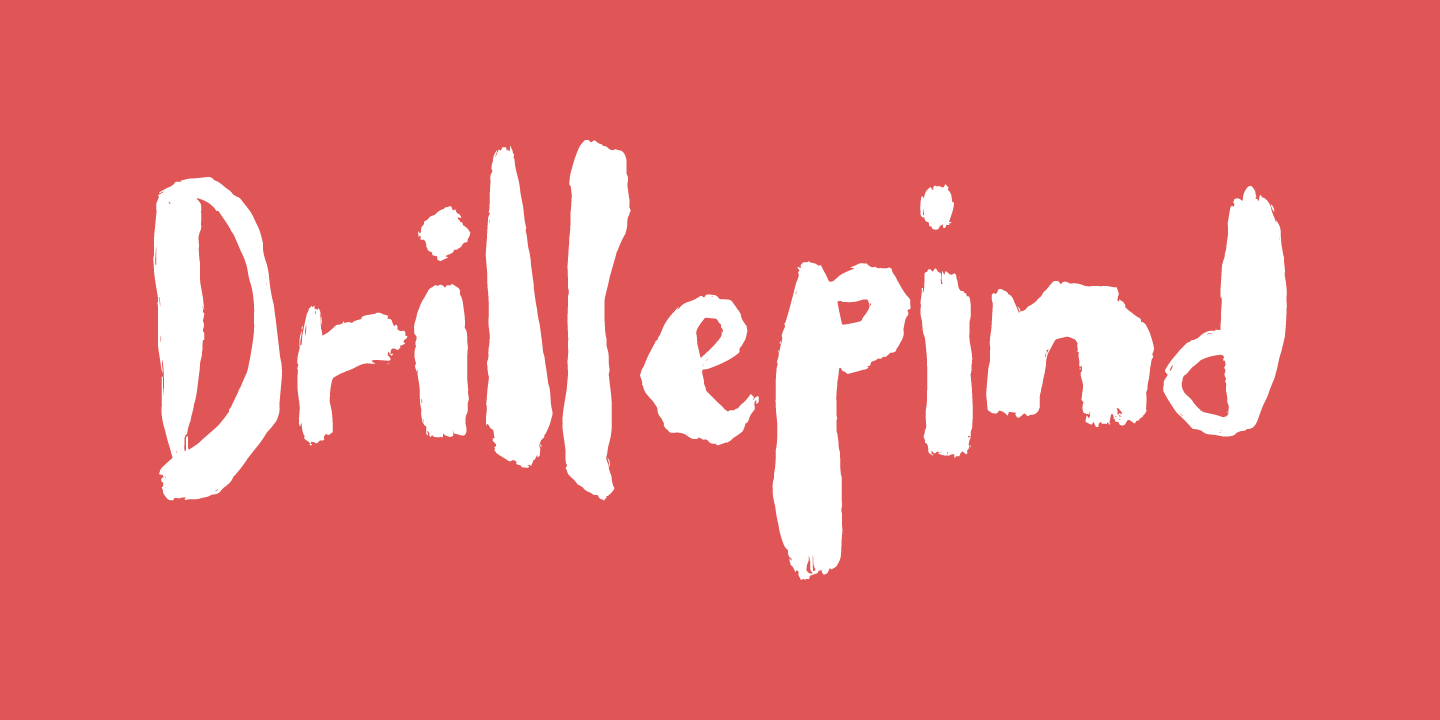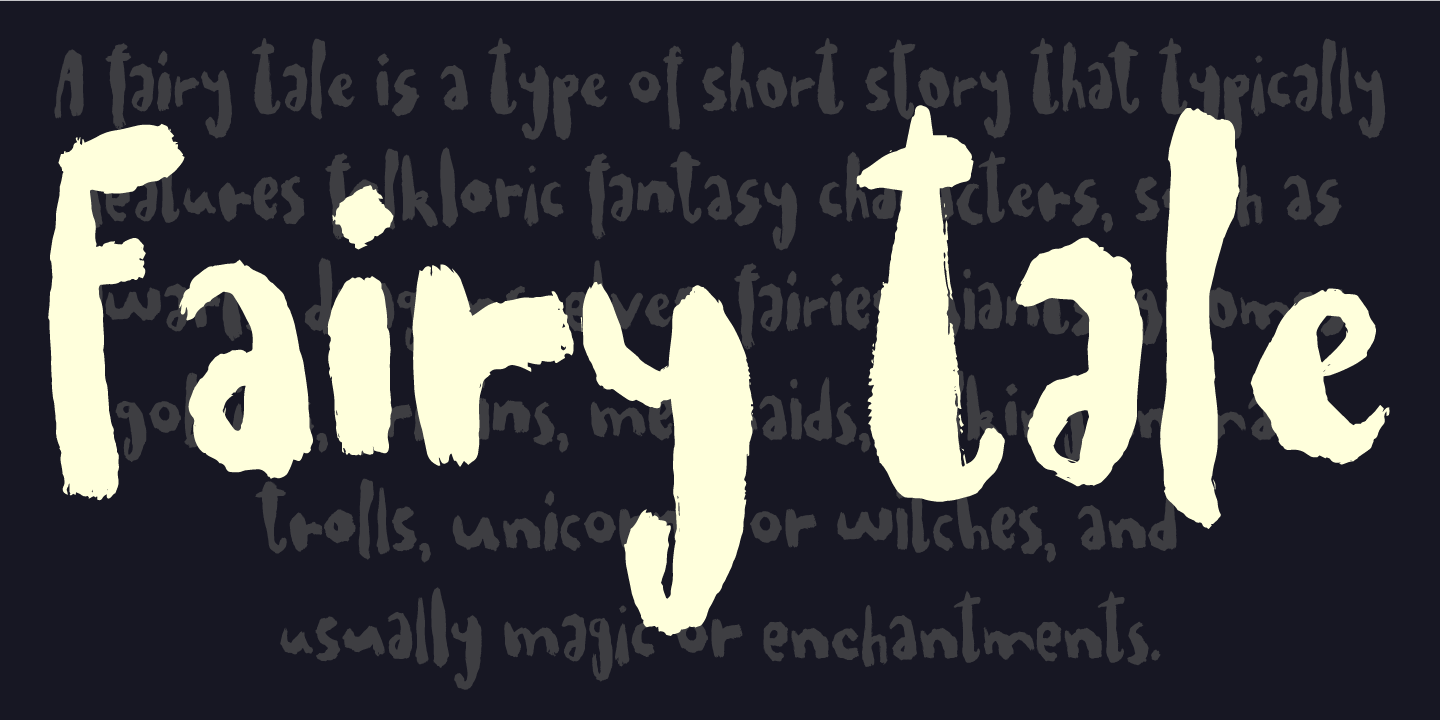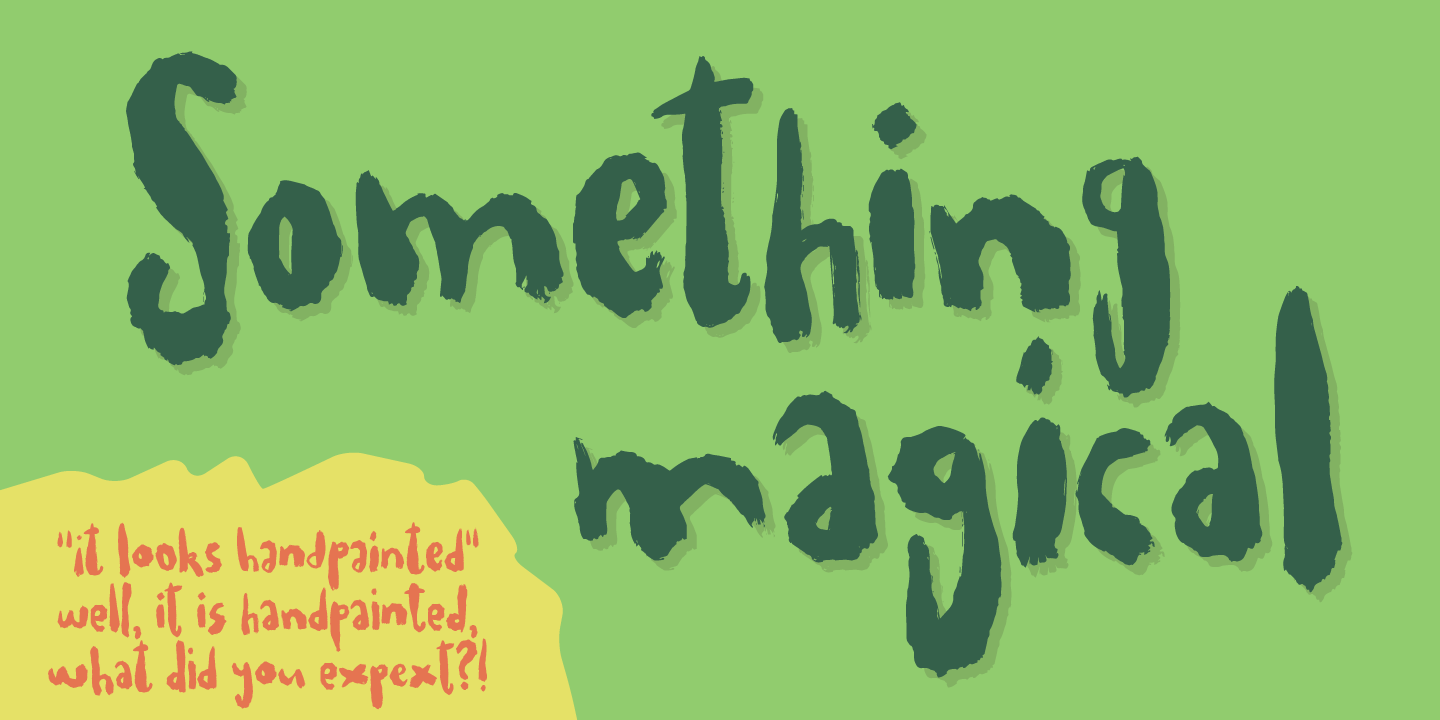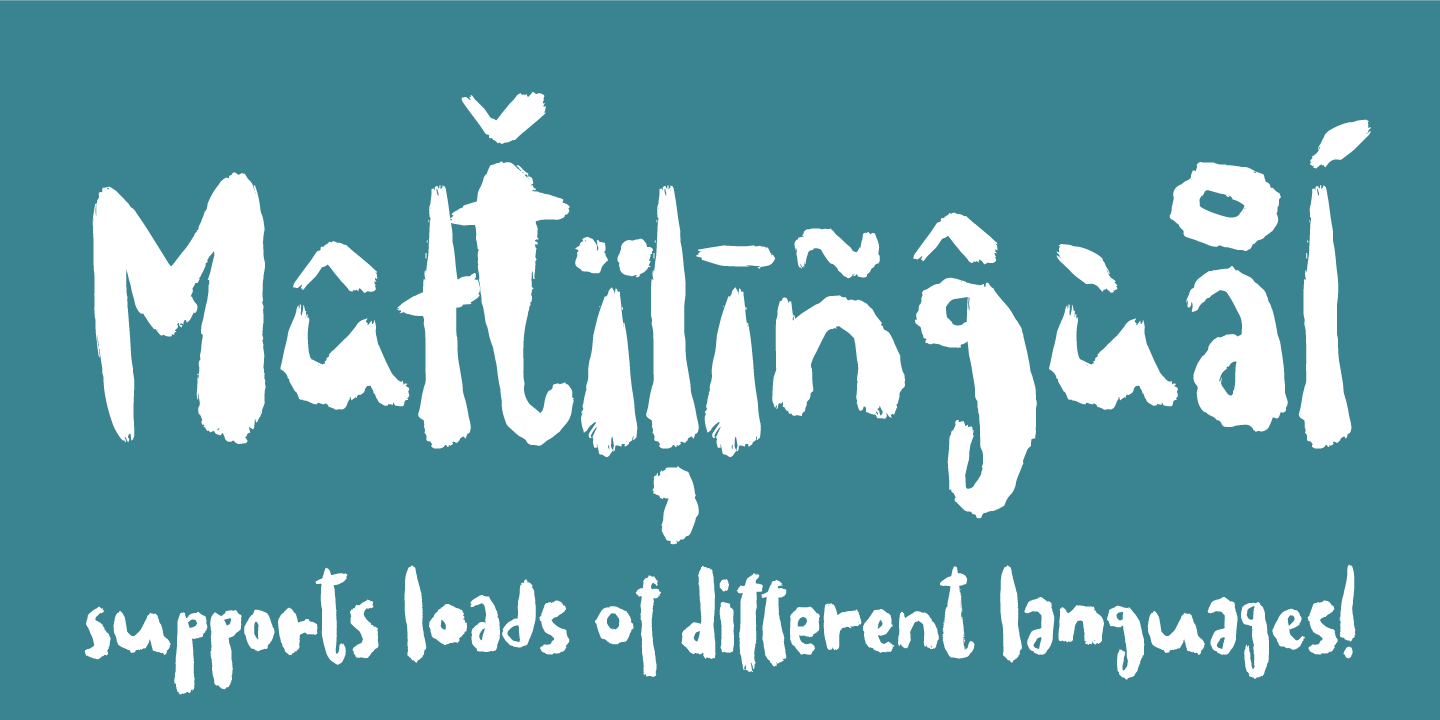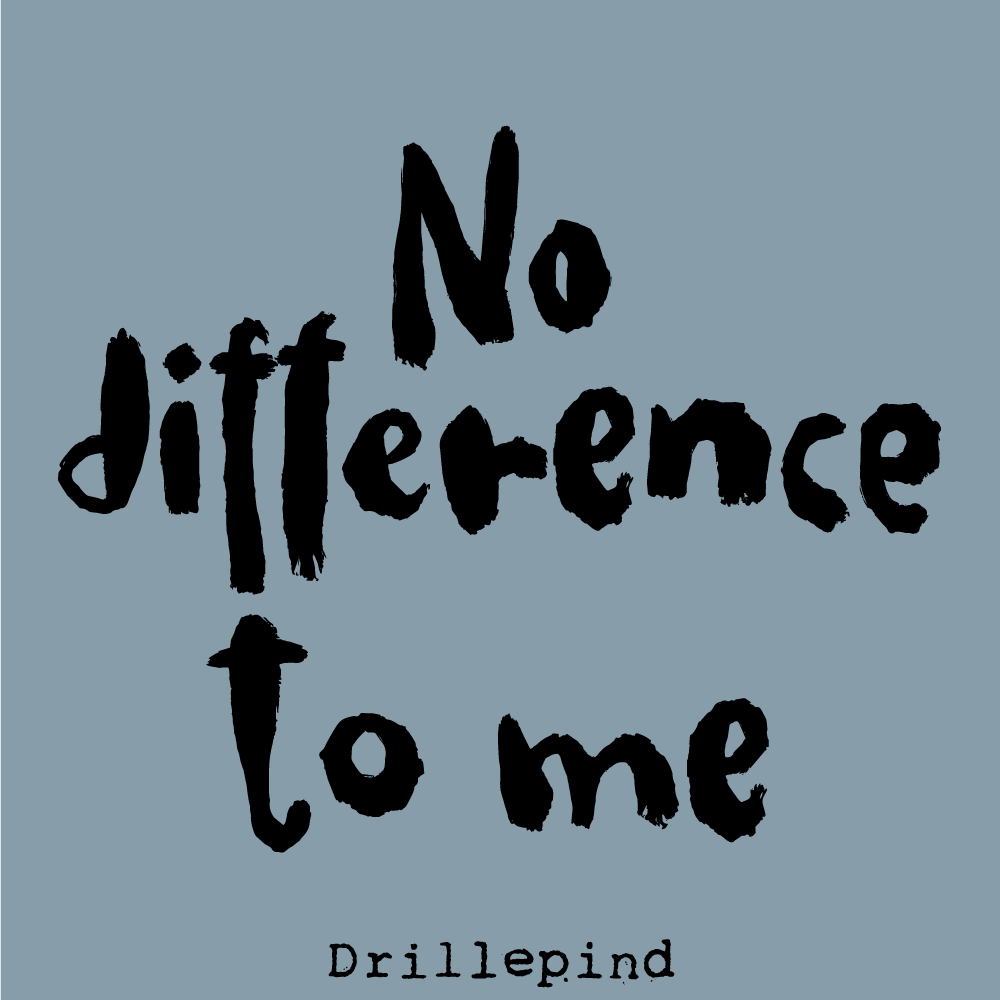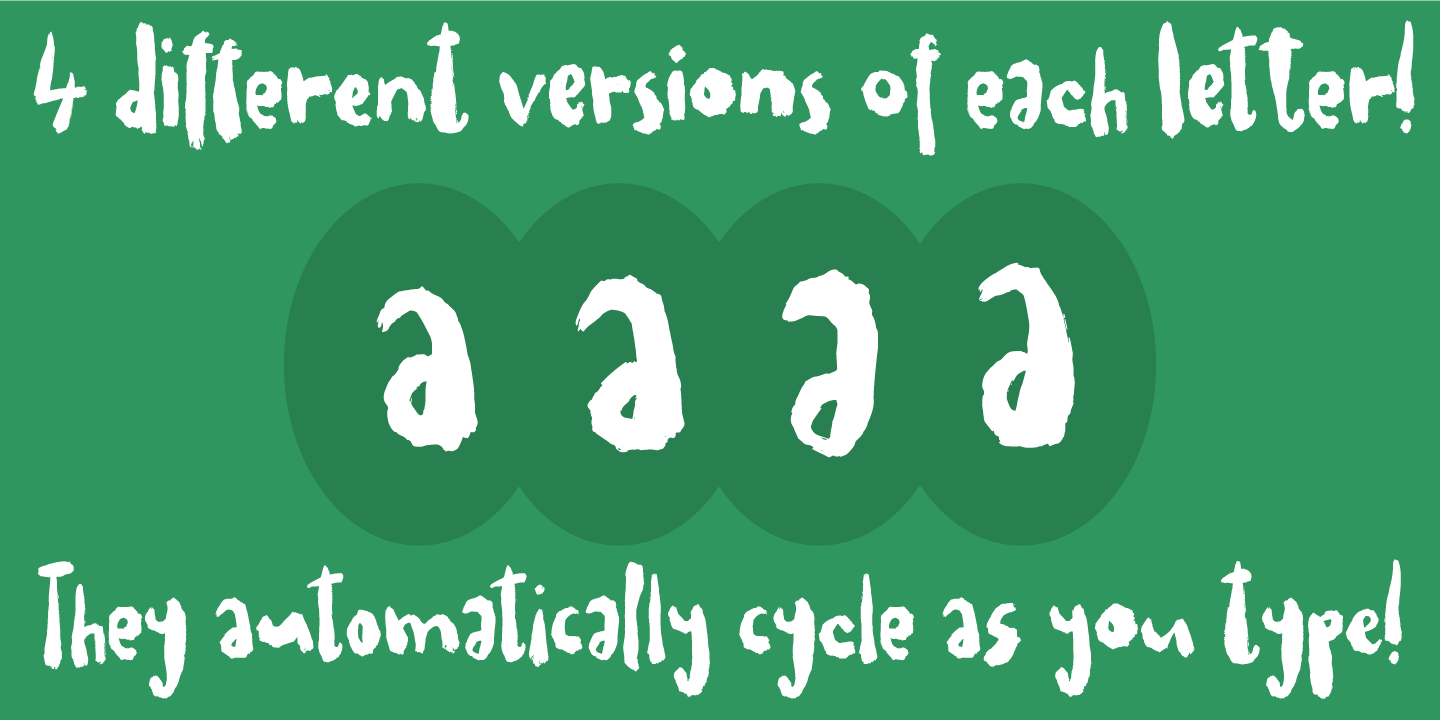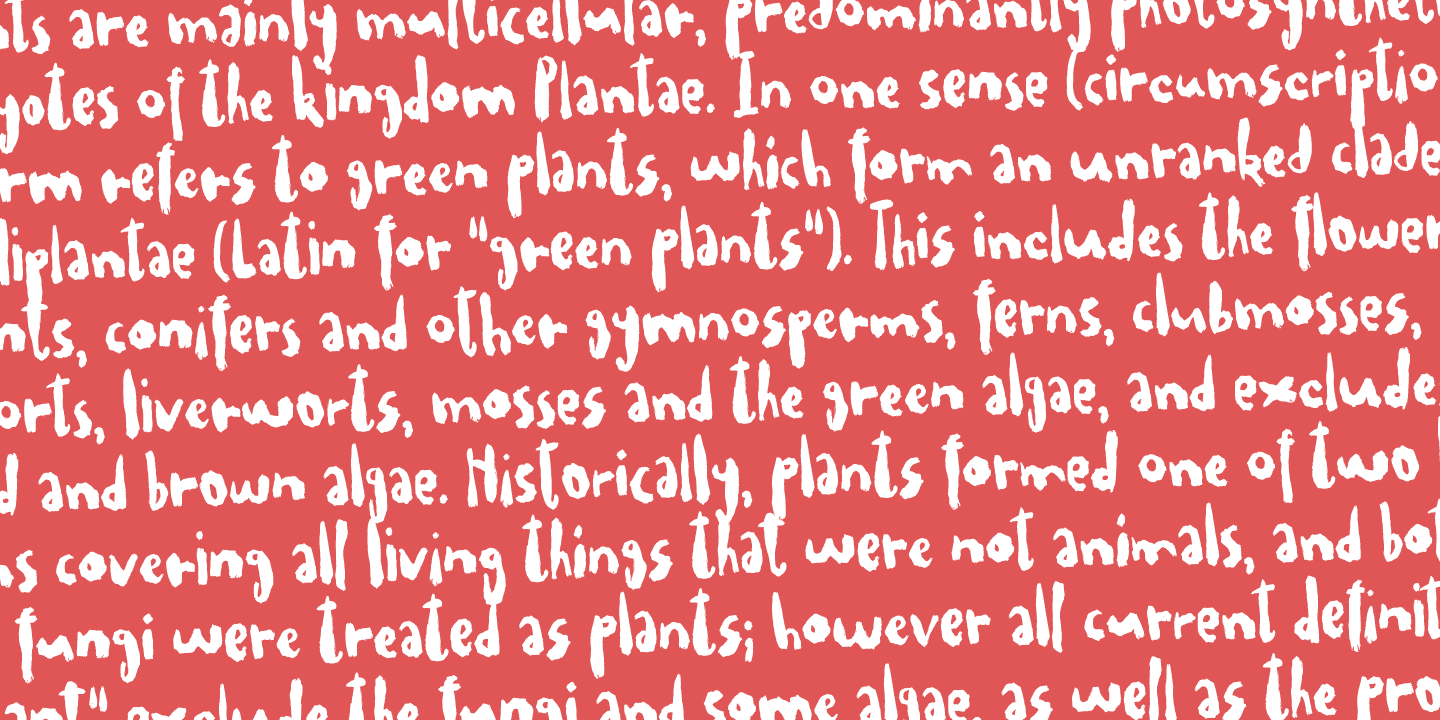
Drillepind
Drillepind is a kidder in danish. You know, someone who teases, without being rude. Once you start typing with Drillepind, you will notice that the font does the same, in a playful way. You never know what happens next, when using the font - but you do know that it'll be loads of fun!